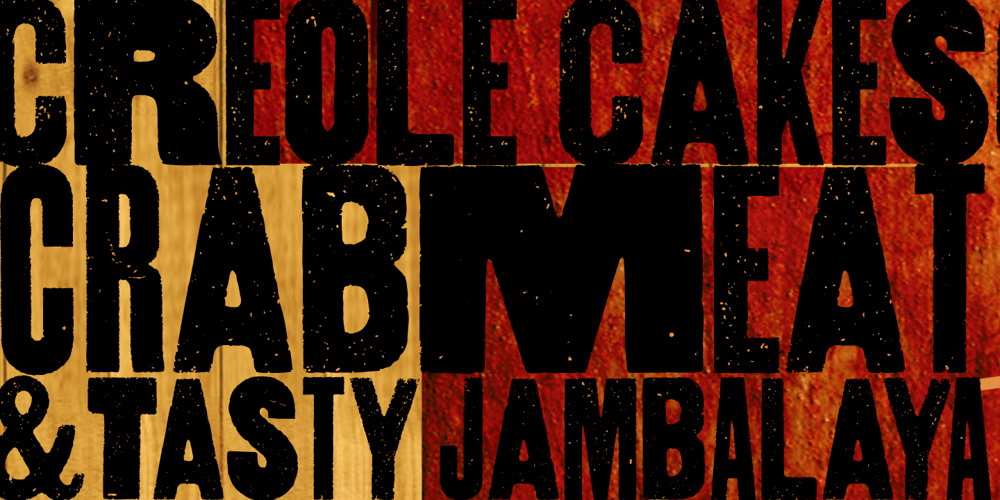
Thunderhouse
Thunderhouse font
Thunderhouse Font Family was designed by Stephen Miggas and published by Aerotype. Thunderhouse contains 2 styles and family package options. A tasty jambalaya of two different weights of wood type, Thunderhouse has alternates for every capital and lowercase letter, consecutive characters are controlled with the OpenType Ligature feature. Thunderhouse Pro extends the character set to support Eastern European Latin, Baltic, Greek and Turkish.